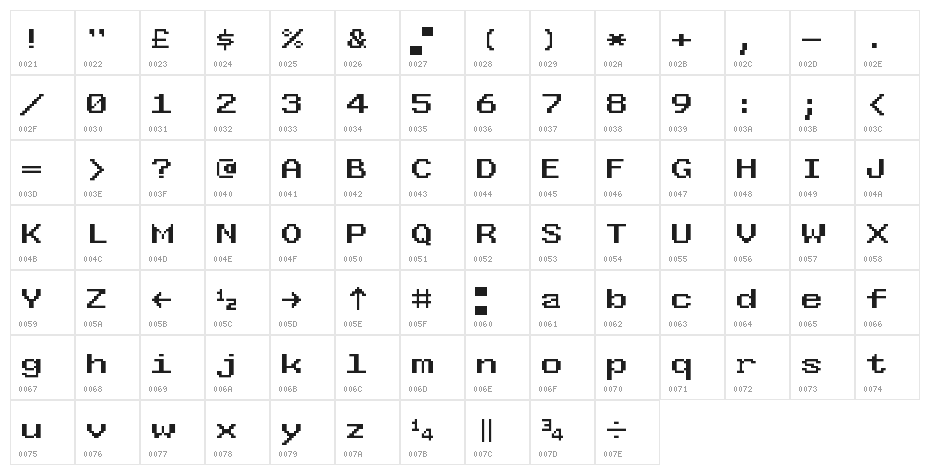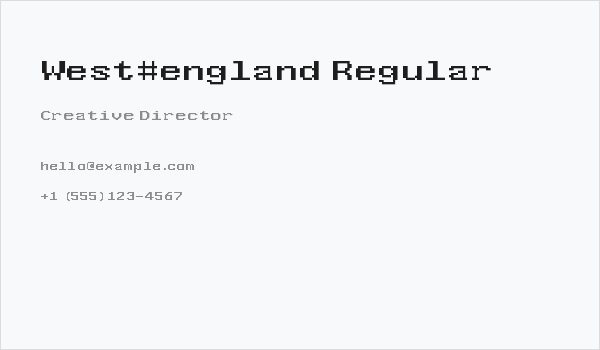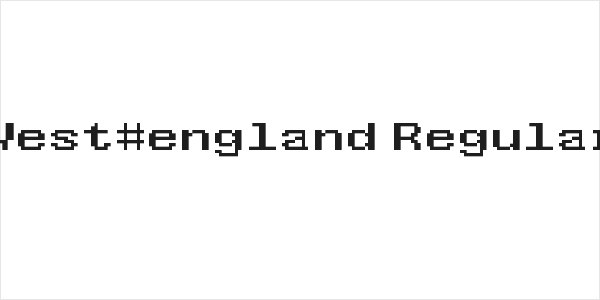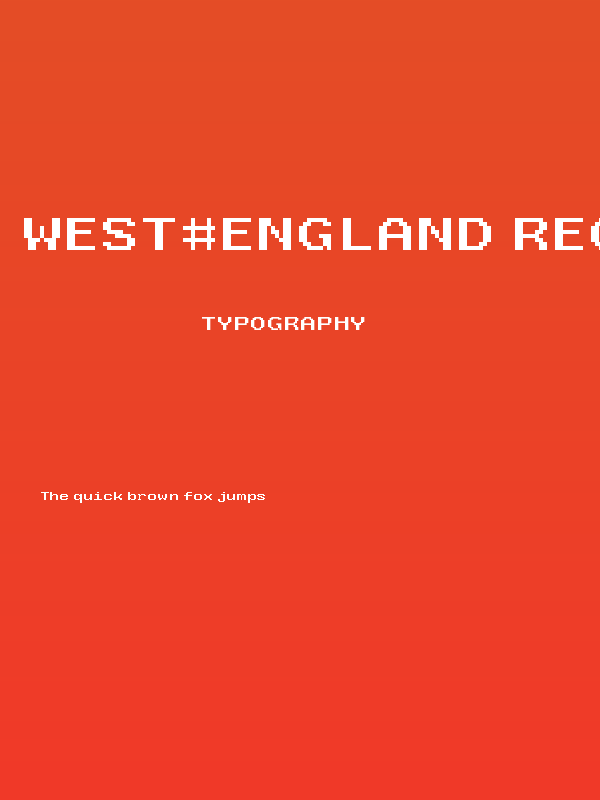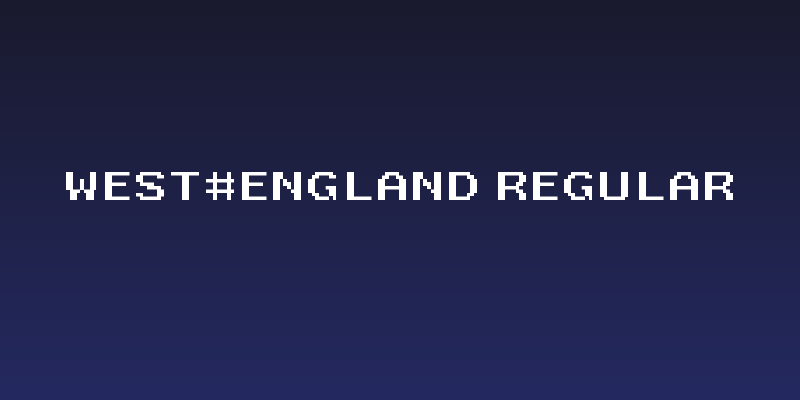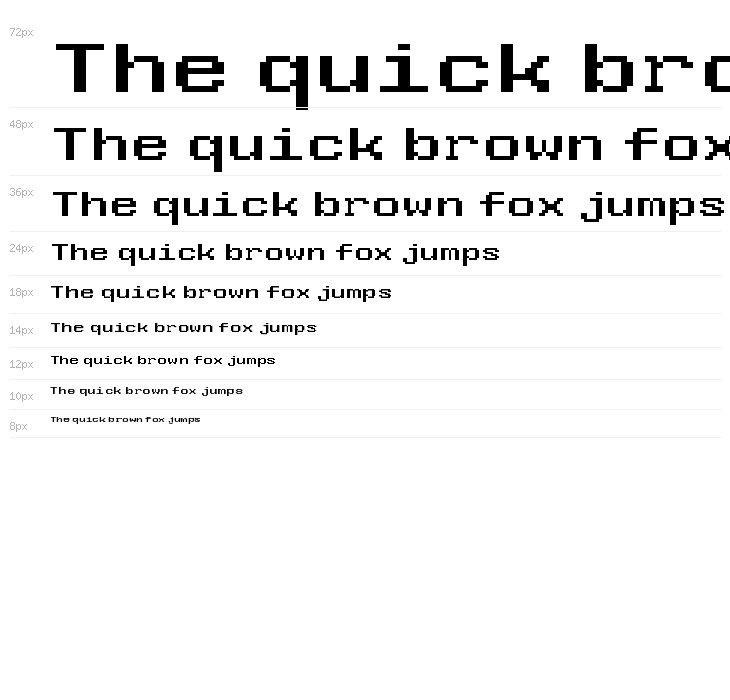
West_england Regular Font
West_england Regular Description
This font features a pixelated, blocky design reminiscent of early digital or video game typography. The characters are uniformly structured with a consistent height and width, giving it a monospaced appearance. The edges are sharp and angular, contributing to its retro digital aesthetic. The uppercase and lowercase letters maintain a similar width, enhancing the uniformity. Numbers and special characters follow the same pixelated style, ensuring a cohesive look across all glyphs. This font is ideal for projects that aim to evoke nostalgia or a retro gaming vibe.
| Overall Style | Retro, Digital |
| Use Case | Logos, Digital displays, Video games |
| Proposed Projects | Ideal for retro video games, digital art projects, or any design requiring a nostalgic digital feel. |